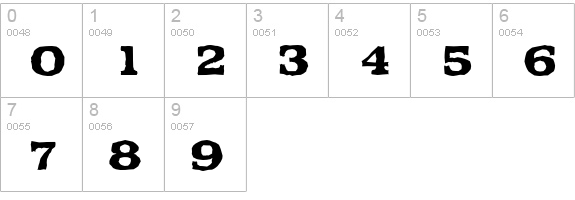
PenthouseAntique-Xbold-Regular Font Details
PenthouseAntique-Xbold-Regular is the standard, neutral variant in the PenthouseAntique typeface family \xE2\x80\x94 well suited to general body text, paragraphs, and standard typographic work.
PenthouseAntique-Xbold-Regular is a sophisticated and elegant font that exudes timeless charm and classic beauty. Its bold and striking appearance makes it perfect for adding a touch of luxury to any design project. This font embodies a sense of refinement and sophistication, making it ideal for high-end branding, invitations, and editorial designs. What sets PenthouseAntique-Xbold-Regular apart is its unique blend of antique-inspired details with a modern twist, creating a font that is both traditional and contemporary. Its clean lines and sharp edges give it a distinct presence that commands attention and leaves a lasting impression. Best of all, PenthouseAntique-Xbold-Regular is available for free download at FontsMarket.com, making it accessible to designers and creatives looking to elevate their projects with a touch of elegance and style. Don't miss out on the opportunity to add this stunning font to your collection and bring a touch of luxury to your designs.